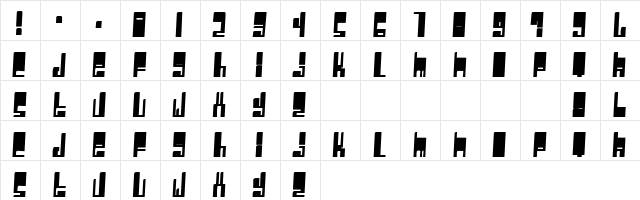
Cyberwhiz Regular Free Font
Cyberwhiz Regular
Design Context for Cyberwhiz
Cyberwhiz has a distinctly futuristic character, with geometric precision and clean angles that feel at home in technology, gaming, and sci-fi contexts.